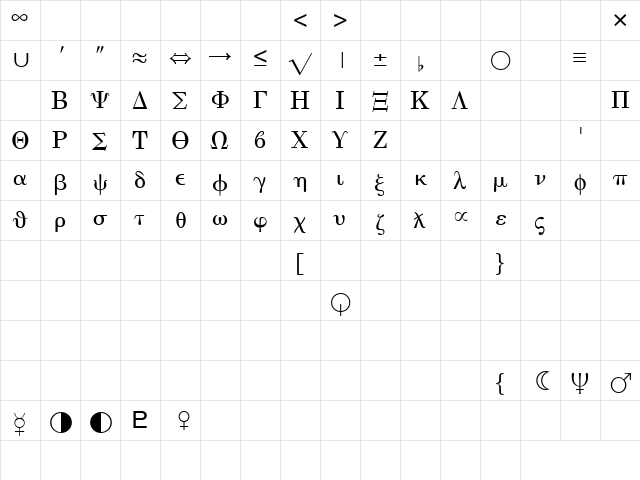
WPi Regular
Design Context for WPi Typeface
WPi offers clean, dependable letterforms without strong stylistic allegiance, making it a practical choice for designers who need flexibility.